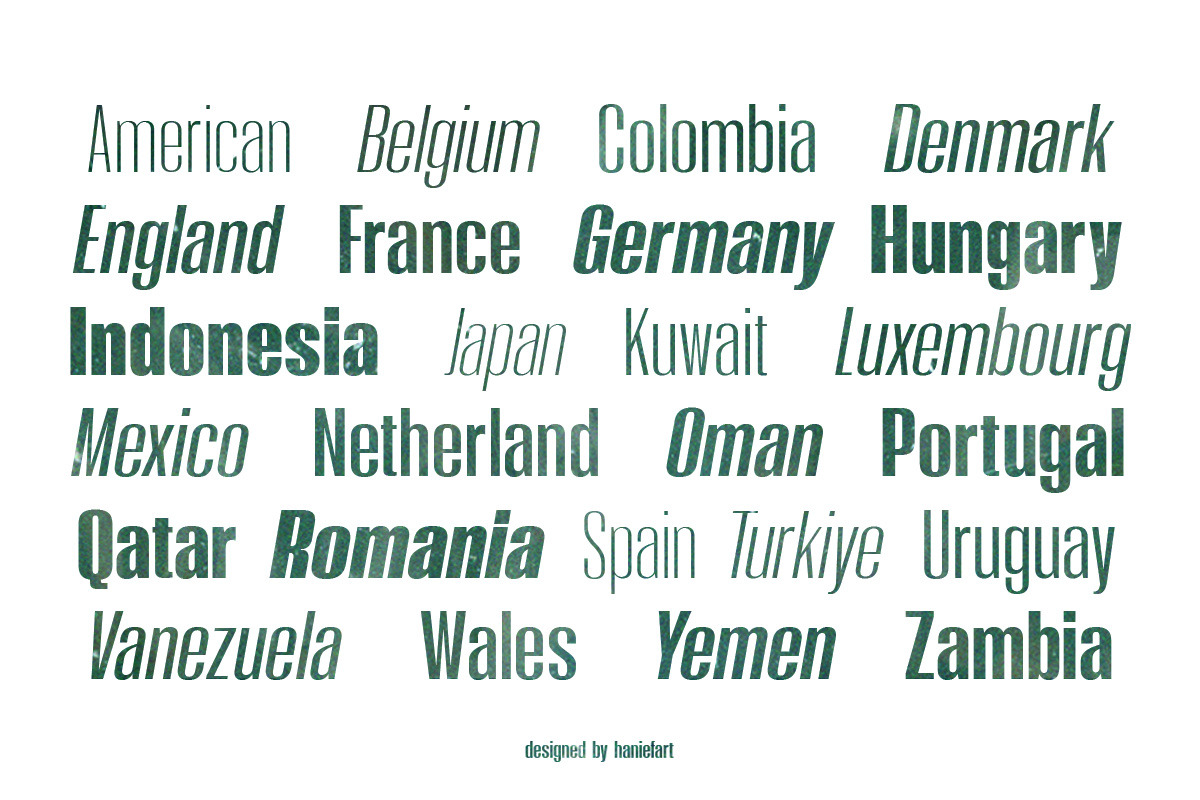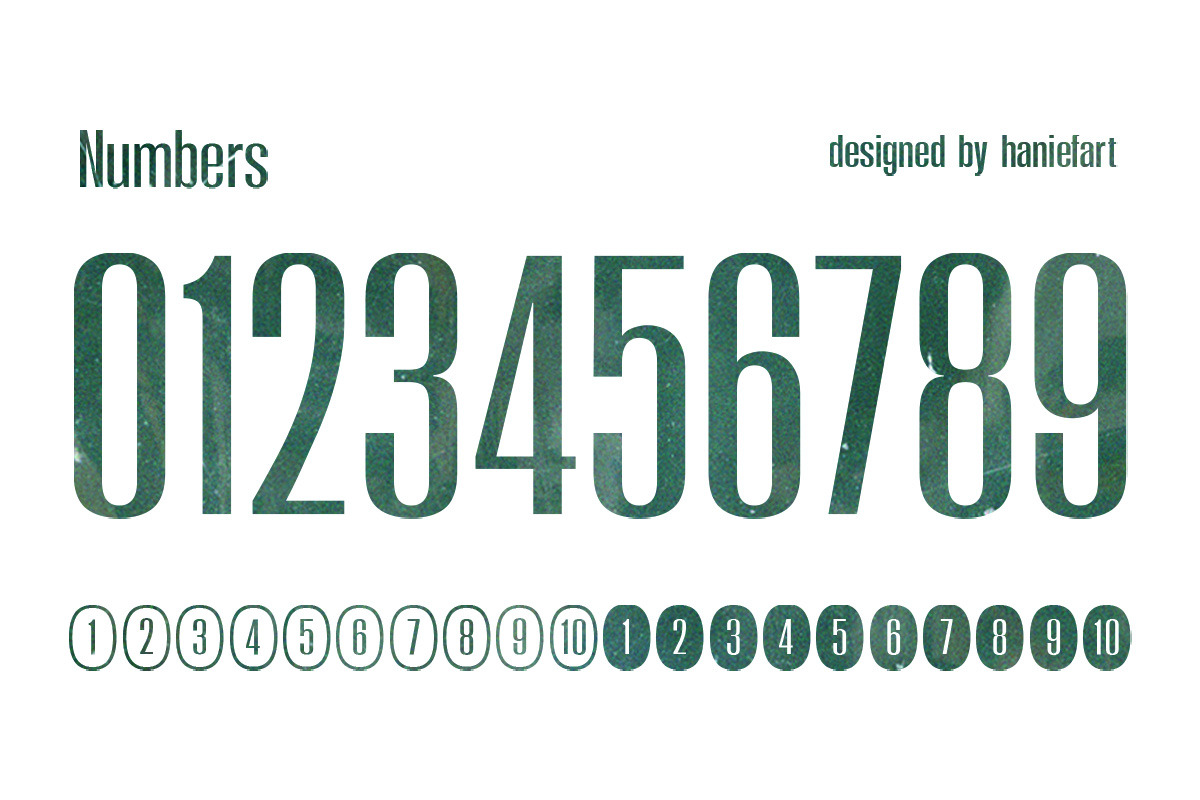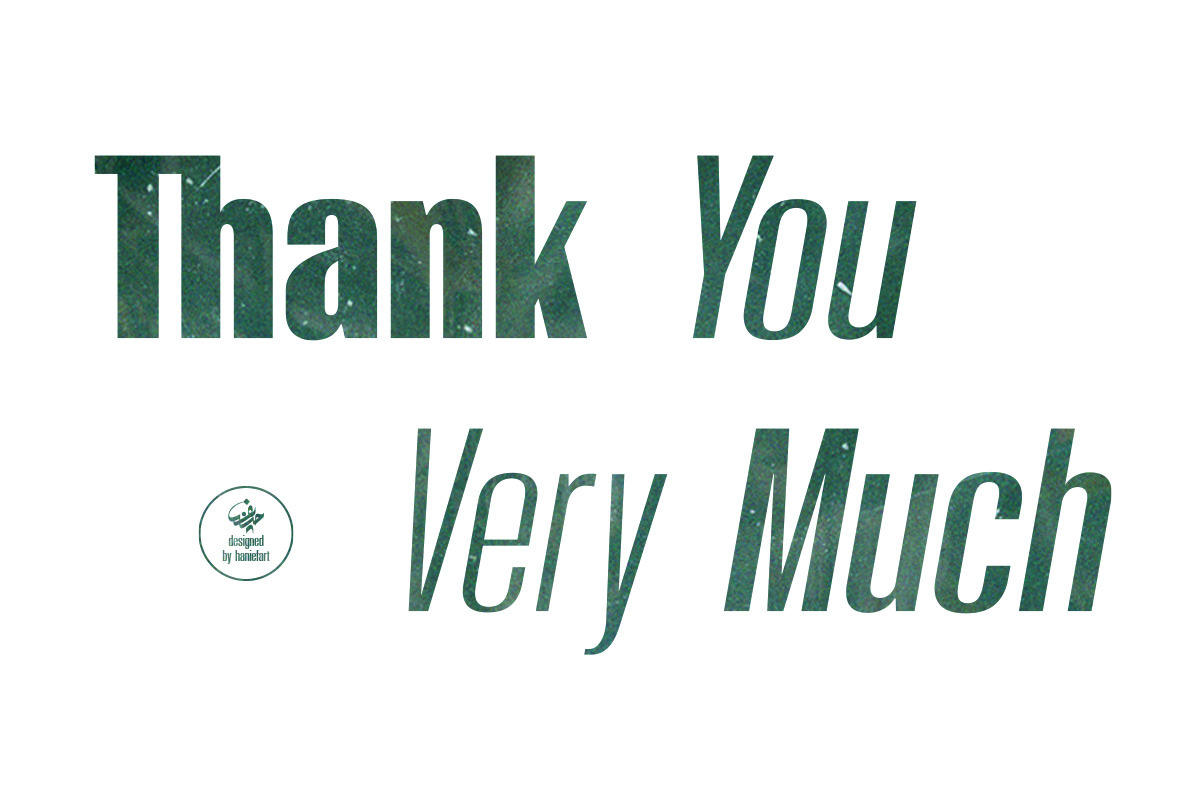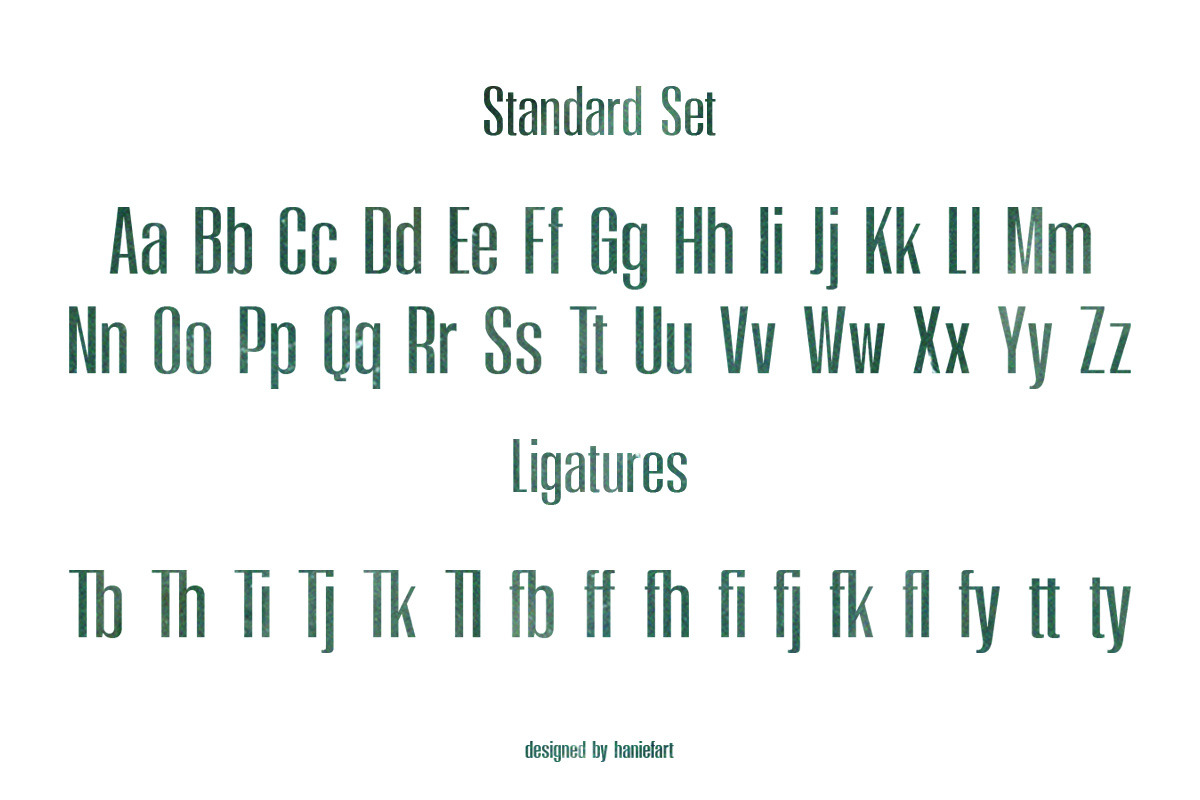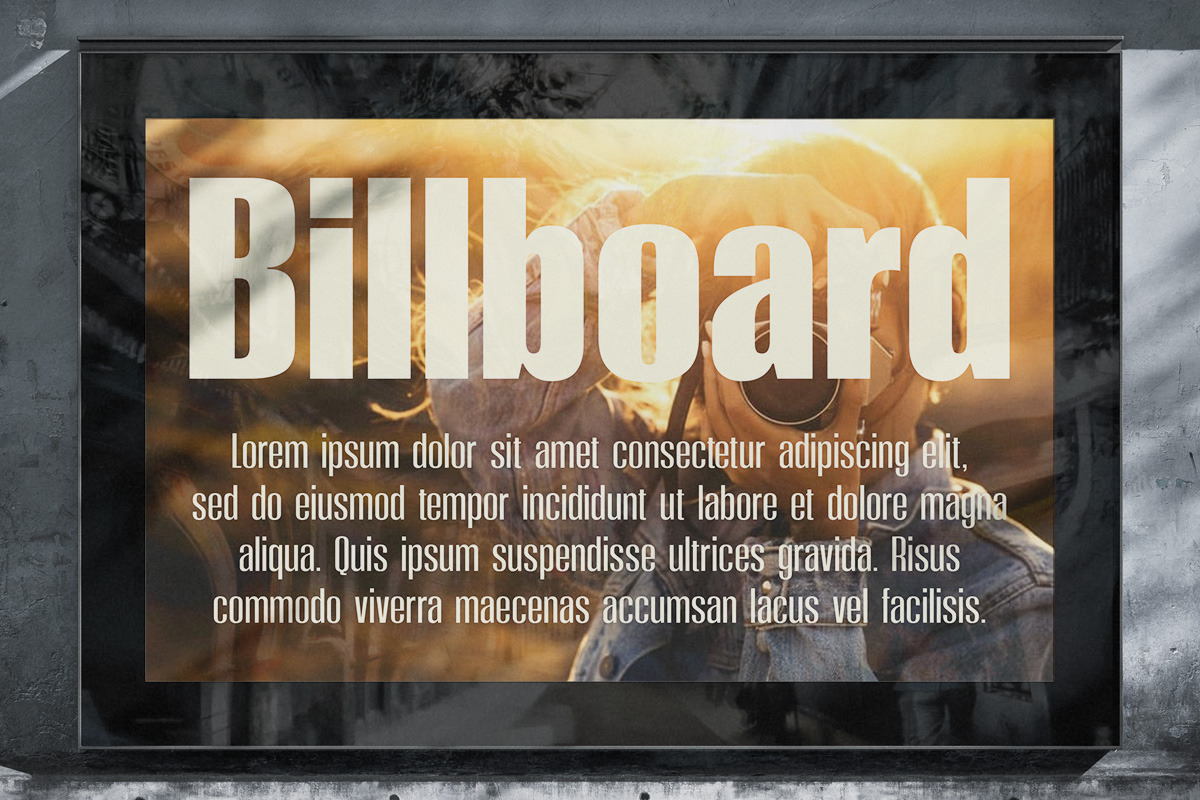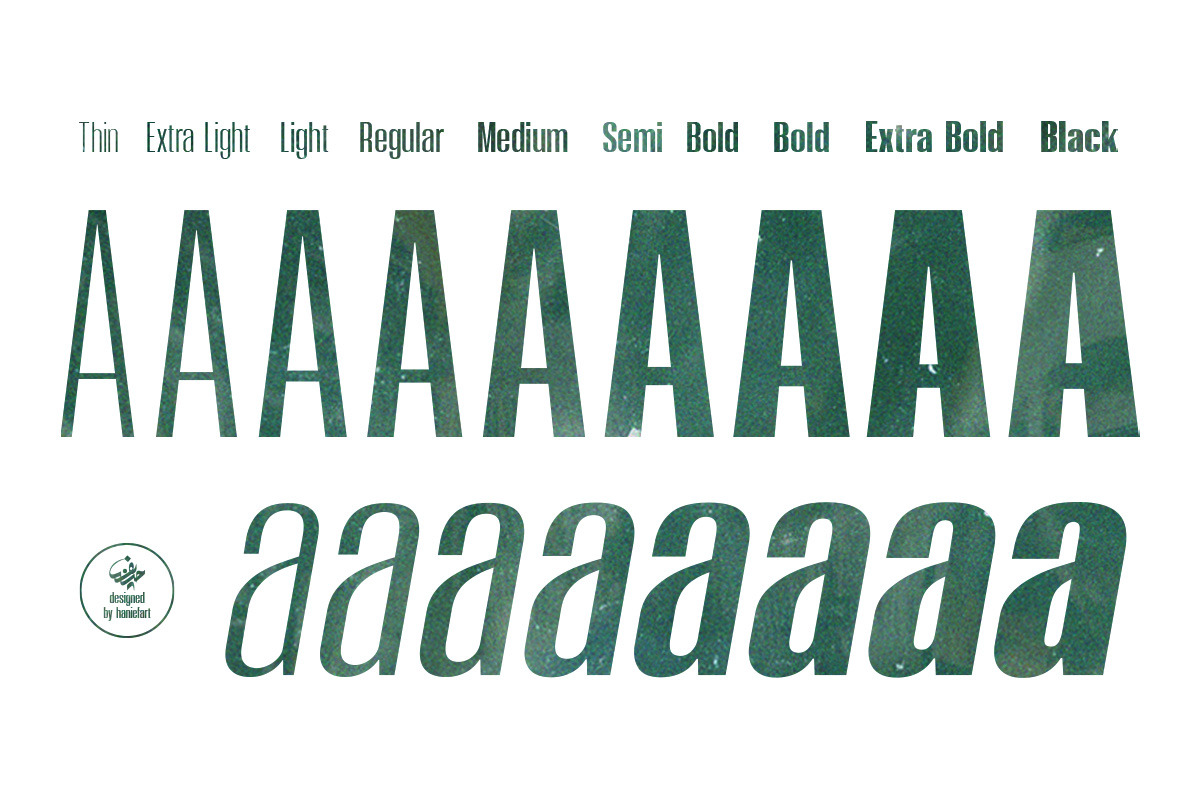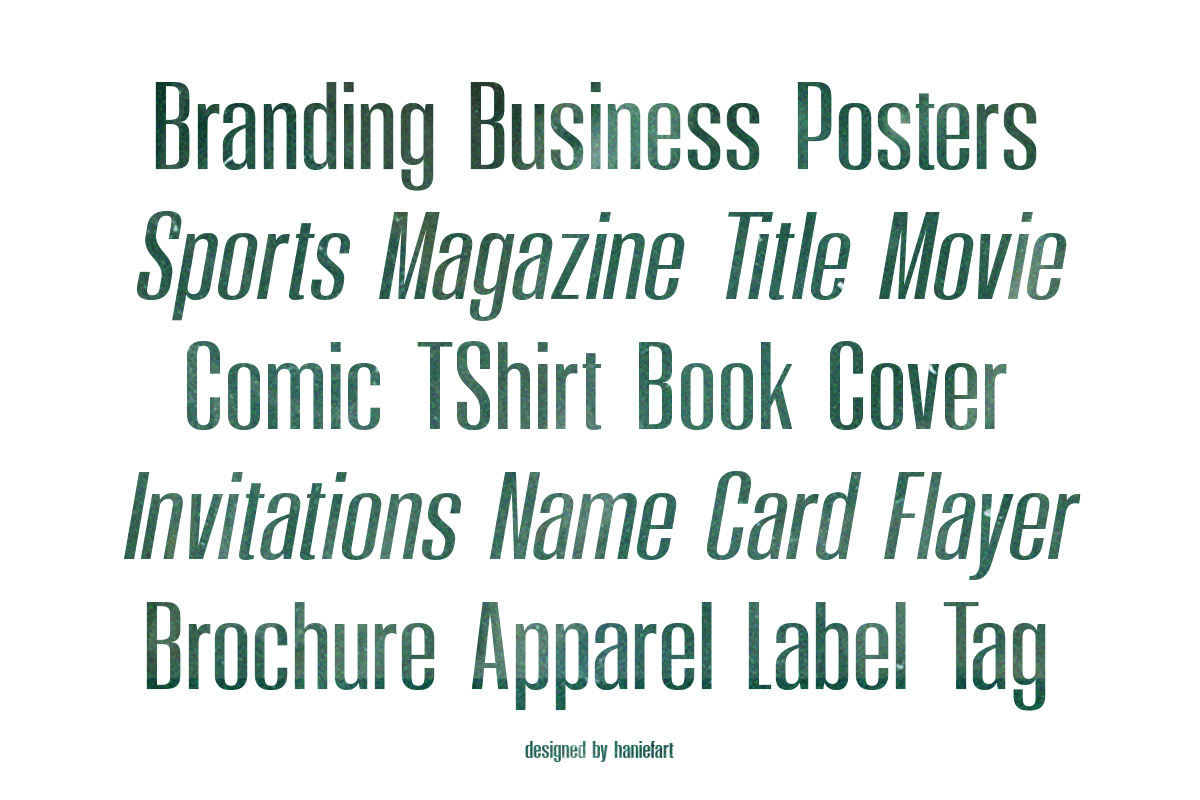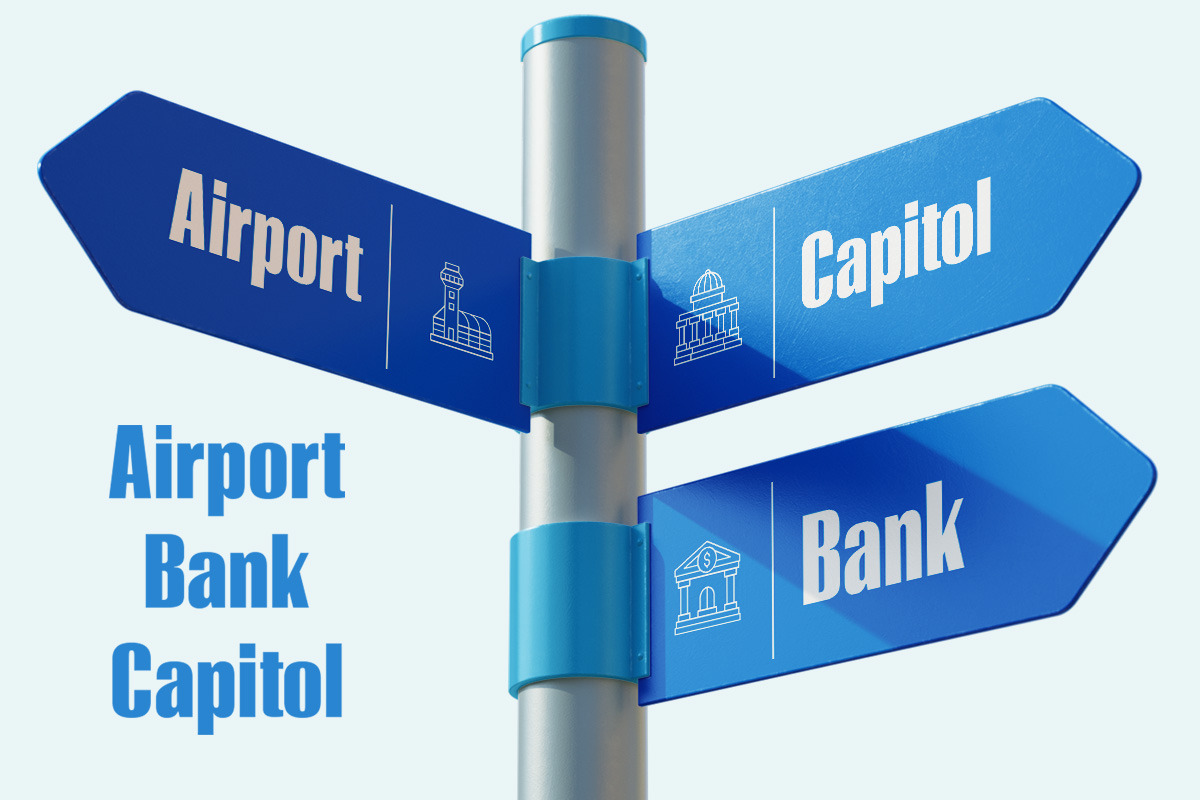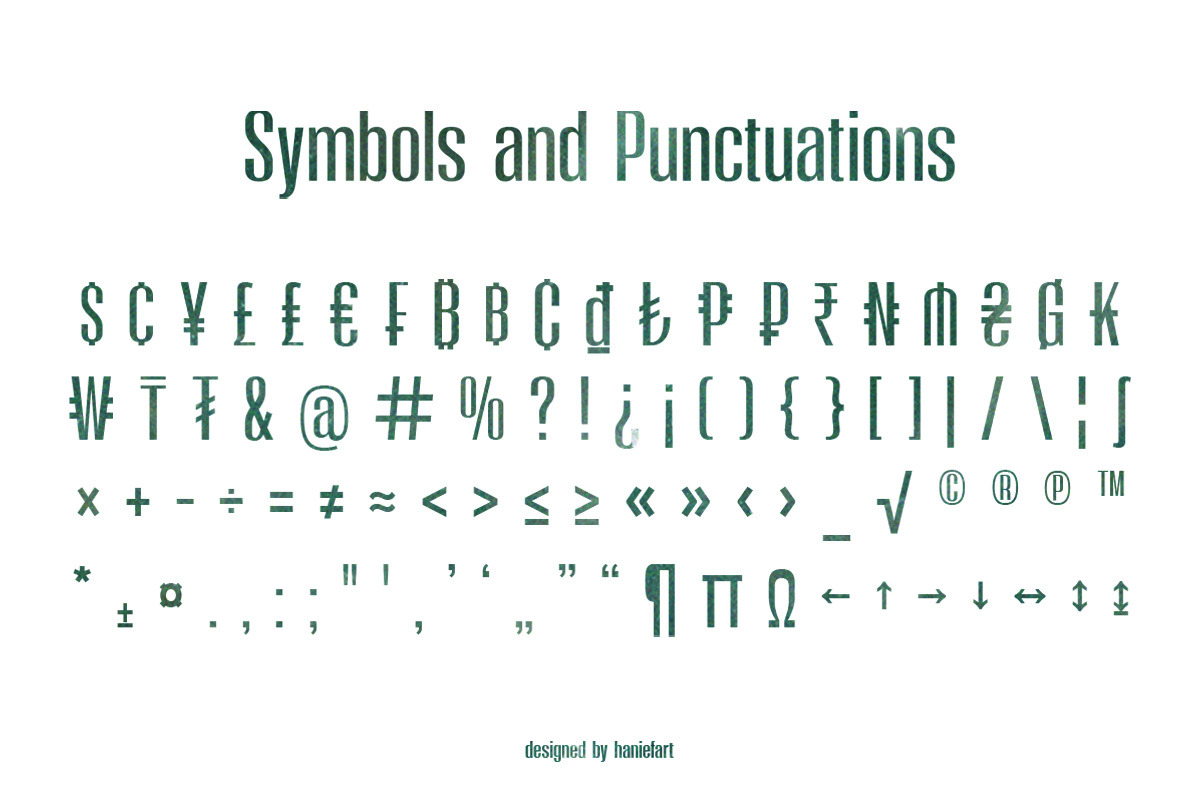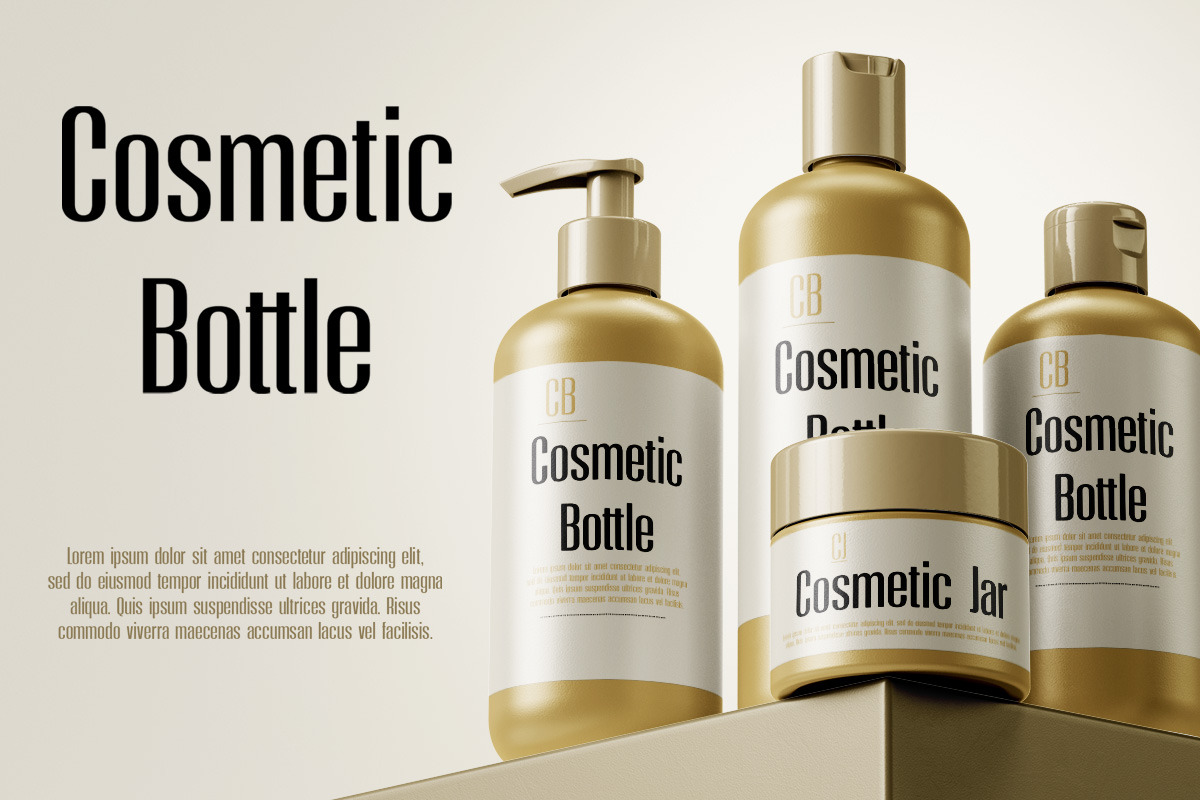
Moleda - Impact Sans Serif Family
Moleda is a sophisticated, versatile sans serif font family. Crafted with a distinctive, high-impact style, this typeface is elegant, beautiful, and friendly. Moleda includes uppercase and lowercase letters, numerals, punctuation, standard ligatures, and multilingual support. This versatile family comes in nine weights, ranging from thin to black, and is available in regular and italic versions. Its distinctive clarity and unique look make Moleda a perfect choice for a variety of designs, including book covers, magazines, brand packaging, brand visuals, posters, banners, business cards, labels, apparel designs, and more.